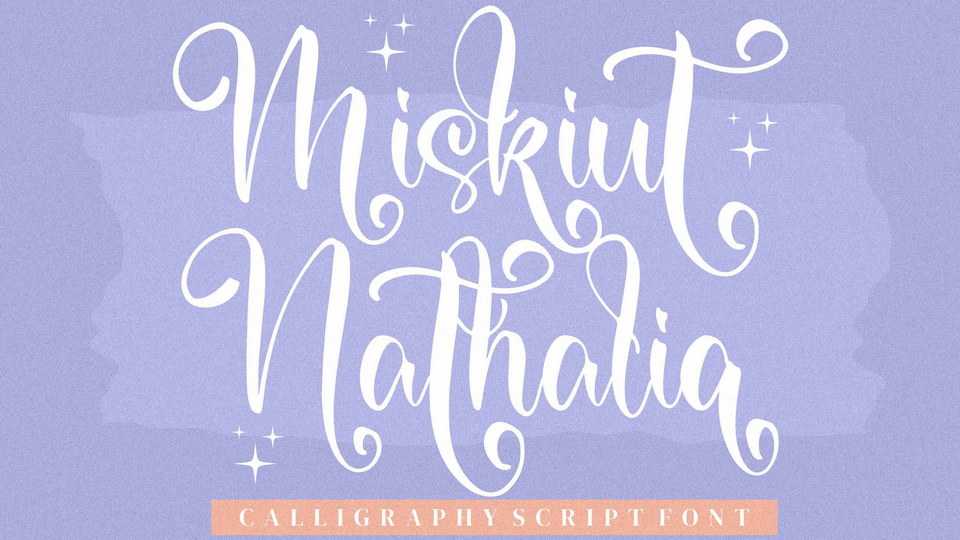
Download Miskiut Nathalia font, a curly modern calligraphy typeface with a playful and magic look. Miskiut Nathalia font is suitable for any projects such as logos, branding projects, wedding, merchandise, cards, special events, and all your projects that need a festive taste.
Designer: Integritype Studio